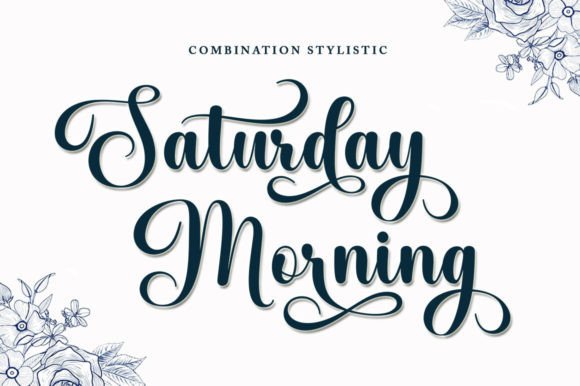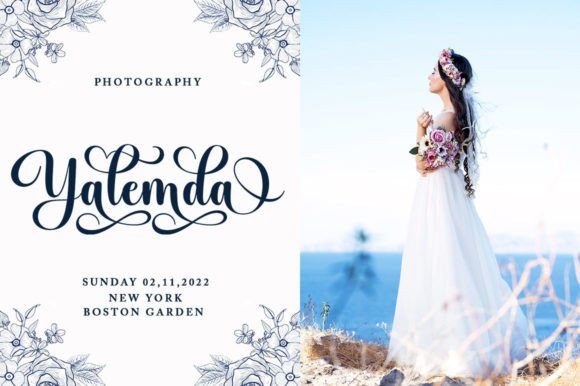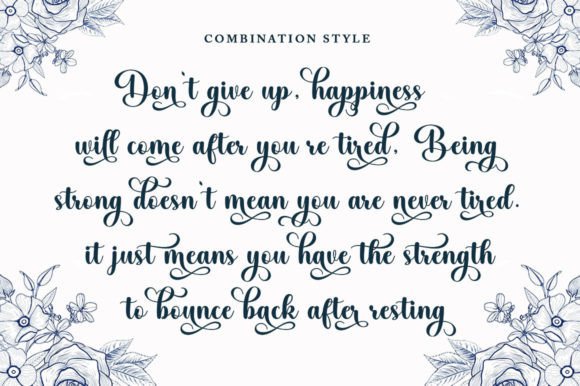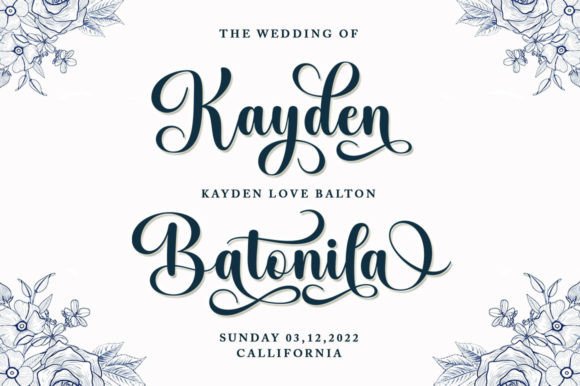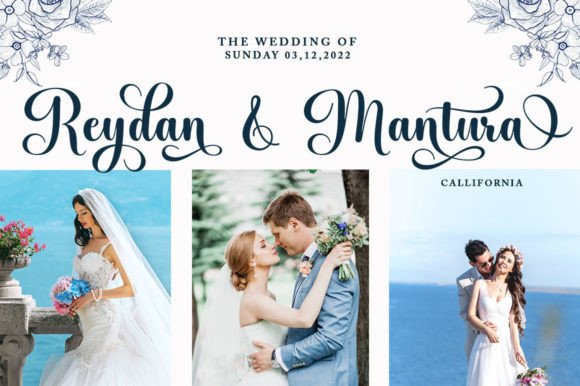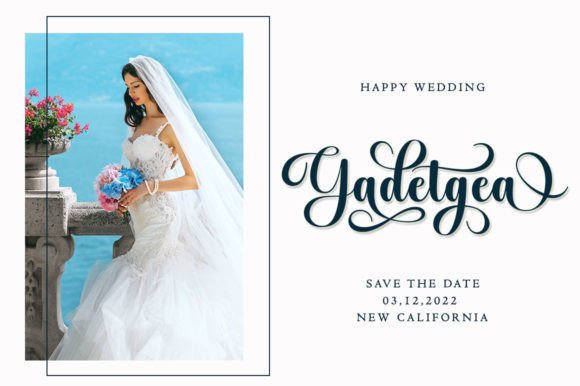
Bilestha Font
Bilestha is a modern script font that features a classic and elegant touch.
Bilestha is attractive because it is sleek, clean, feminine, sensual, glamorous, simple, and very easy to read. Thanks to its many beautiful letter relationships, this classy typeface is suitable for various formal forms such as invitations, labels, restaurant menus, logos, fashion, makeup, stationery, novels, magazines, books, greeting/wedding cards, packaging, labels or all kinds of advertising purposes. This font is PUA encoded, which means you can access all of the glyphs and swashes with ease!